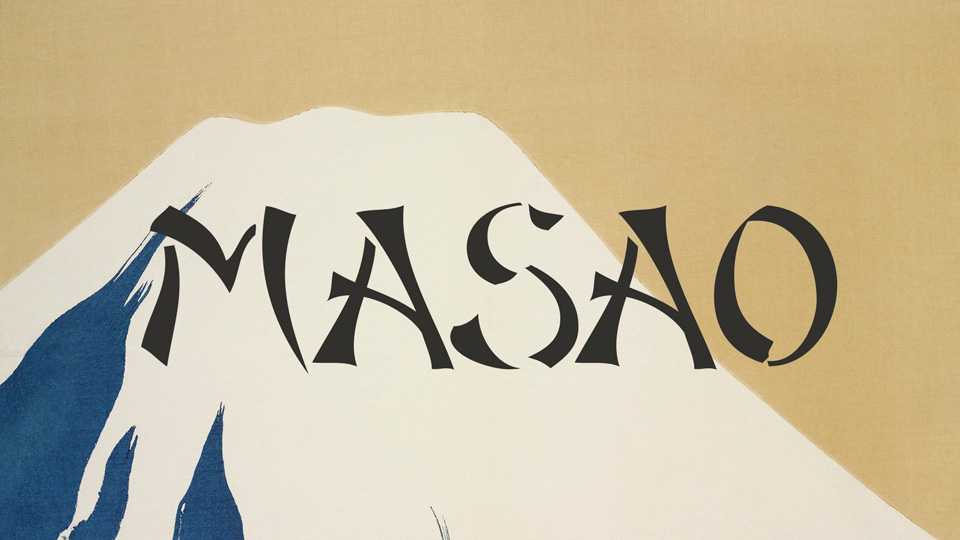
Download Masao Free font, a decorative display typeface inspired by Japanese culture. With its oriental look Masao is great for authentic projects, posters, headlines, covers and more.
Designer: Jonathan Paterson